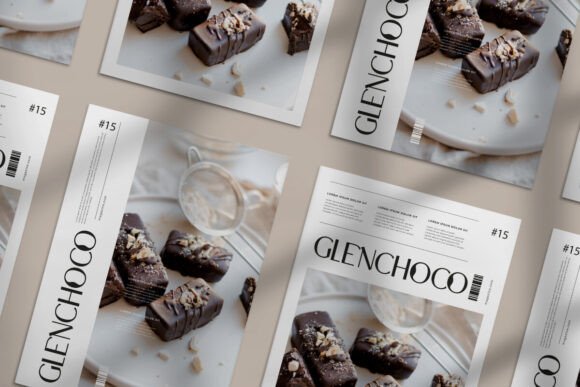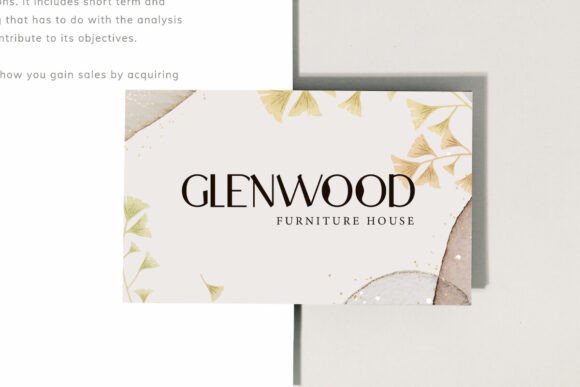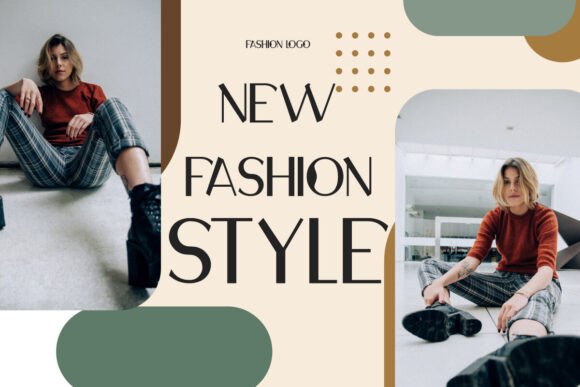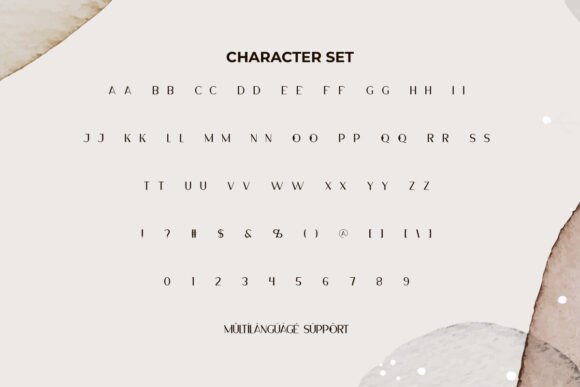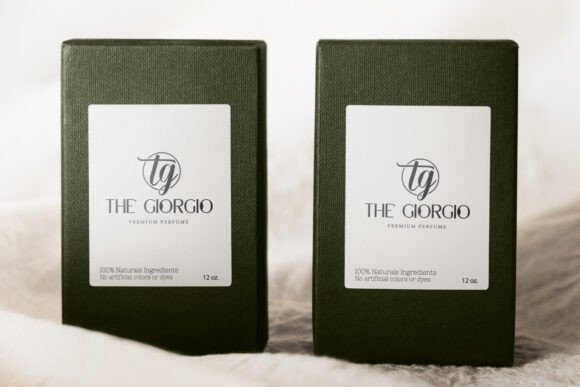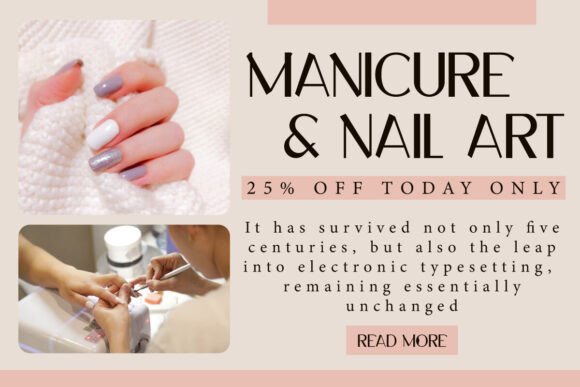
Glenwood Font: Elevate Your Designs with Elegance and Uniqueness
In the world of typography, a font can make or break a design. It’s the perfect blend of form and function, conveying a message while captivating the audience’s attention. If you’re a designer or crafter looking for a font that stands out from the crowd, look no further than Glenwood Font. This unique, elegant, and unusual serif display font is about to become your new go-to for a wide range of design projects.
What Makes Glenwood Font Special?
Glenwood Font boasts distinctive shapes on some letters, setting it apart from more traditional fonts. Its unusual serif design adds a touch of sophistication and elegance, making it perfect for projects where you want to leave a lasting impression. Whether you’re working on a brand image, custom design, or marketing material, Glenwood Font’s unique flair will undoubtedly make your design stand out.
Endless Design Possibilities with Glenwood Font
One of the best things about Glenwood Font is its versatility. Its elegant and refined appearance makes it suitable for a wide range of applications, including:
- Brand Image: Establish a strong brand identity with a unique font that reflects your brand’s personality.
- Cover Design: Create eye-catching book covers, magazine covers, or album covers that grab attention.
- Custom Design: Add a personal touch to your designs with a font that’s both elegant and unusual.
- Invitation: Make your invitations, wedding cards, or event invites truly special with Glenwood Font.
- Label and Packaging: Stand out on store shelves with product packaging and labels that feature a distinctive font.
- Marketing Materials: Elevate your brochures, flyers, and posters with a sophisticated font that communicates your message effectively.
- Menu Design: Give your restaurant or cafe a touch of class with menu designs that feature Glenwood Font.
- Poster: Create stunning posters for events, promotions, or awareness campaigns.
- Product Packaging: Make your products more appealing with custom packaging that features Glenwood Font.
- Quote and Signage: Use Glenwood Font for inspirational quotes, signs, or banners that make a statement.
- Stationery: Add a touch of elegance to your letterheads, business cards, or notebooks.
- Web Design: Enhance your website’s typography with Glenwood Font, making it more engaging and memorable.
Why Choose Glenwood Font?
With so many fonts available, why choose Glenwood Font? Here are just a few reasons:
- Unique and Memorable: Glenwood Font’s distinctive design ensures your projects will be remembered.
- Elegant and Sophisticated: The font’s refined appearance adds a touch of luxury to any design.
- Versatile: Suitable for a wide range of applications, from print to digital.
- Easy to Read: Despite its unique design, Glenwood Font remains clear and easy to read.
If you’re looking for a font that will elevate your designs and make them stand out, Glenwood Font is an excellent choice. Its unique blend of elegance and unusual design elements makes it perfect for a wide range of projects. Whether you’re a designer, crafter, or DIY enthusiast, Glenwood Font is sure to become a valuable addition to your typography toolkit. So why wait? Explore the possibilities with Glenwood Font today and discover a world of creative potential!